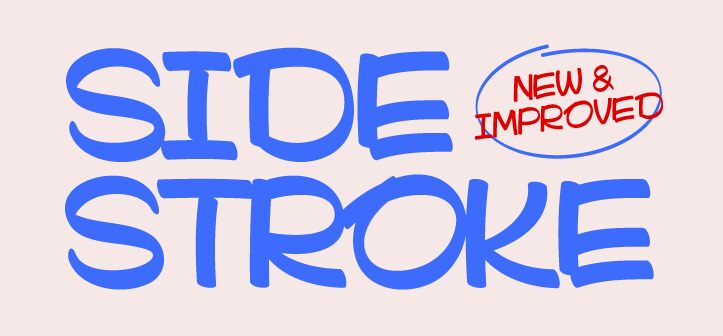
The typeface is inspired by my love of old hand-painted signs in butchers, and based on some very quick sketches using a brush pen to find what shapes worked. There is quite a quirky element to the type, as I tried to create my original sketches by rotating the brush pen at times. This lead to a horizontal stressing, which is most noticeable in letters like C, G, S and J.
Sidestroke DEMO